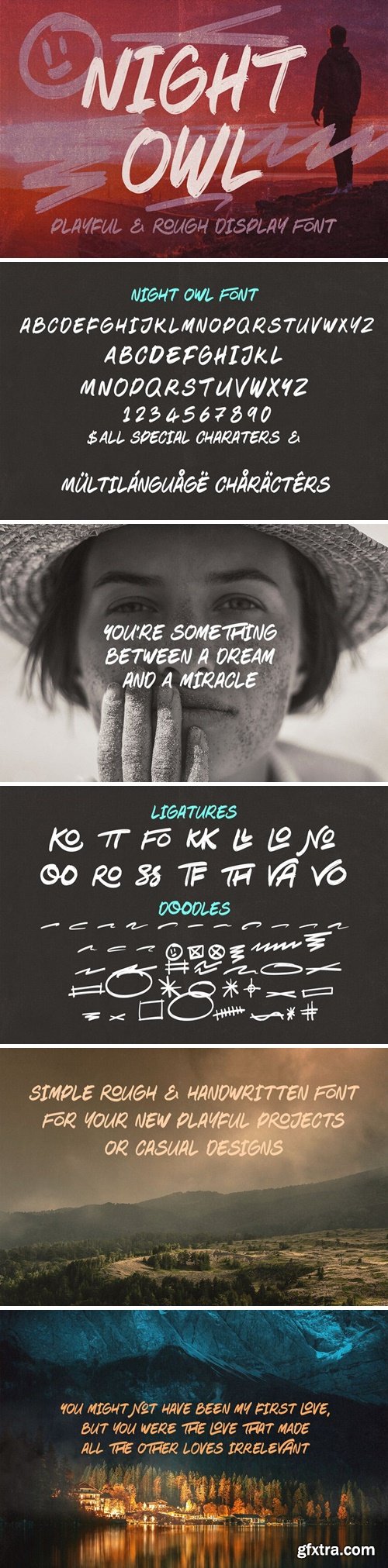
Casual, simple, rough, handwritten and marker sans serif font for your new projects. With multi language support and casual artistic or street style ;)